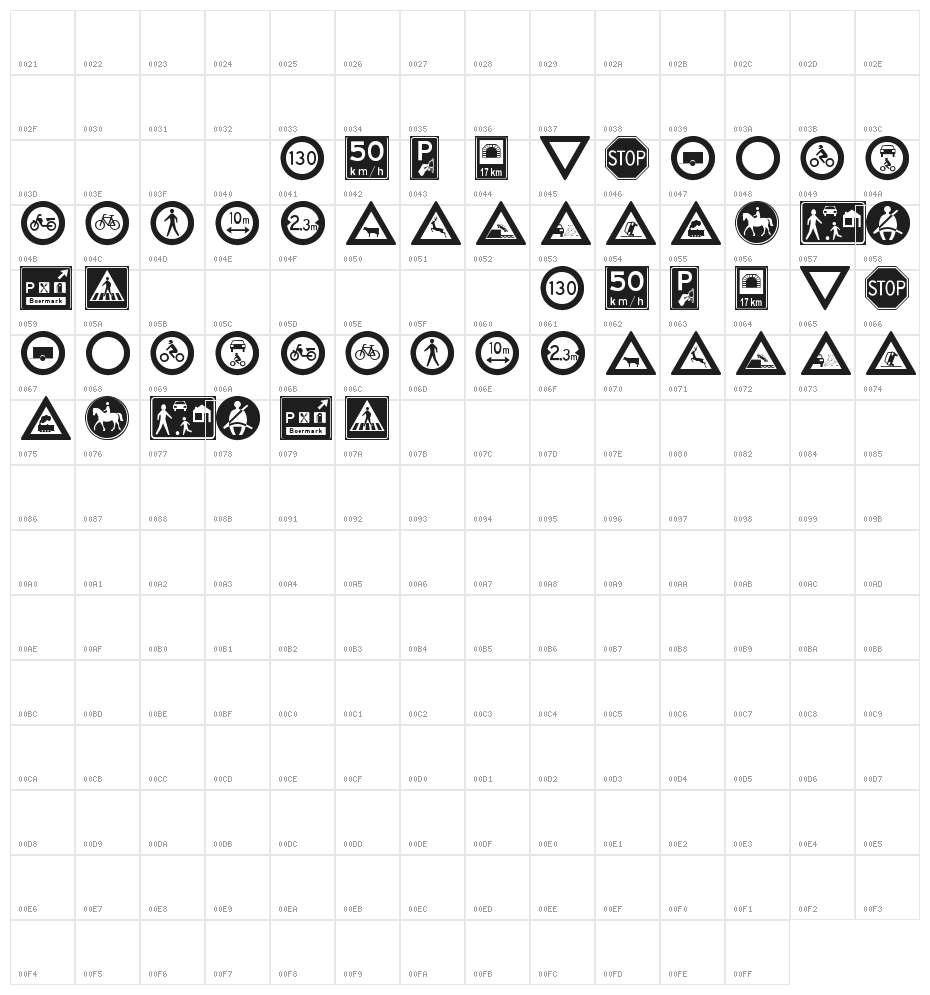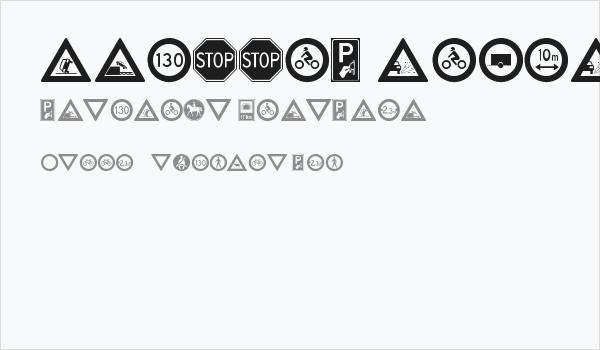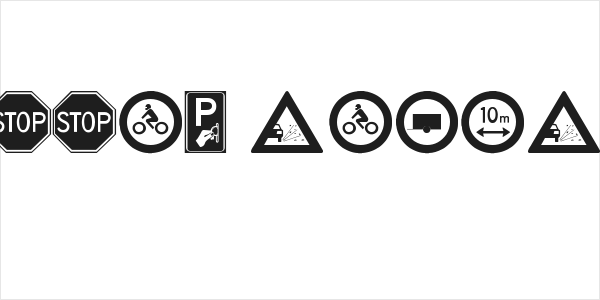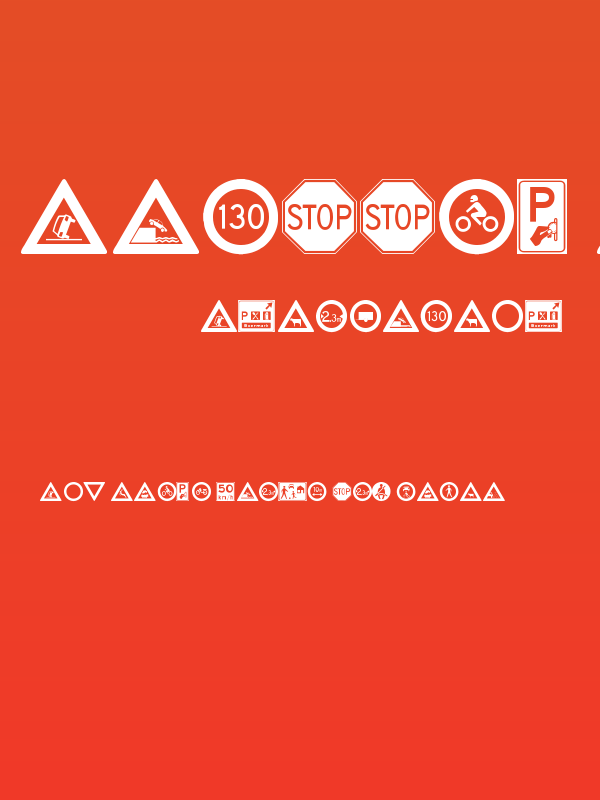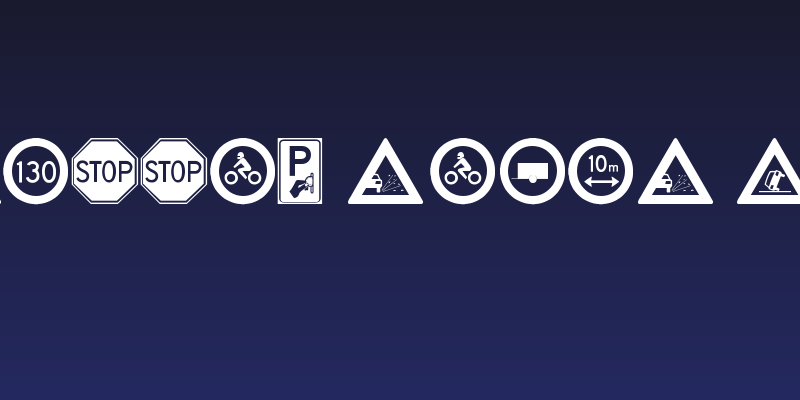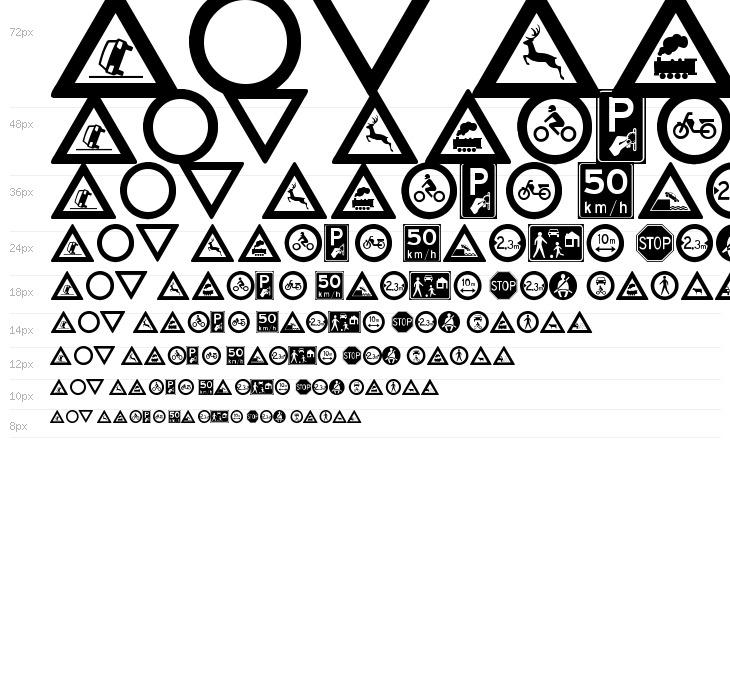
traffic signs tfb Font
traffic signs tfb Description
A collection of pictogram-style glyphs representing various traffic signs, including speed limits, parking, warnings, and pedestrian symbols. The icons are bold, high-contrast, and use simple geometric shapes for clarity and legibility.
| Overall Style | Modern, Functional, Pictographic |
| Use Case | Icons, Signage, Infographics, Educational content |
| Proposed Projects | Wayfinding systems, educational materials, transport apps, infographics, signage mockups. |